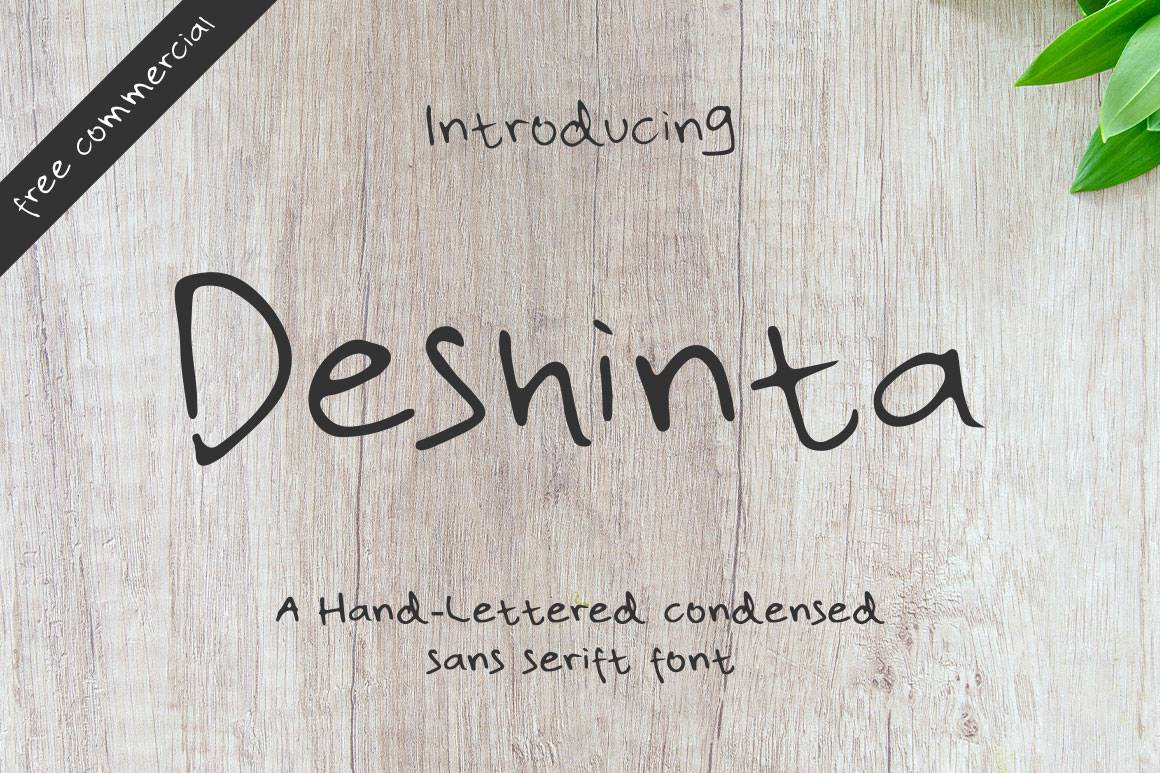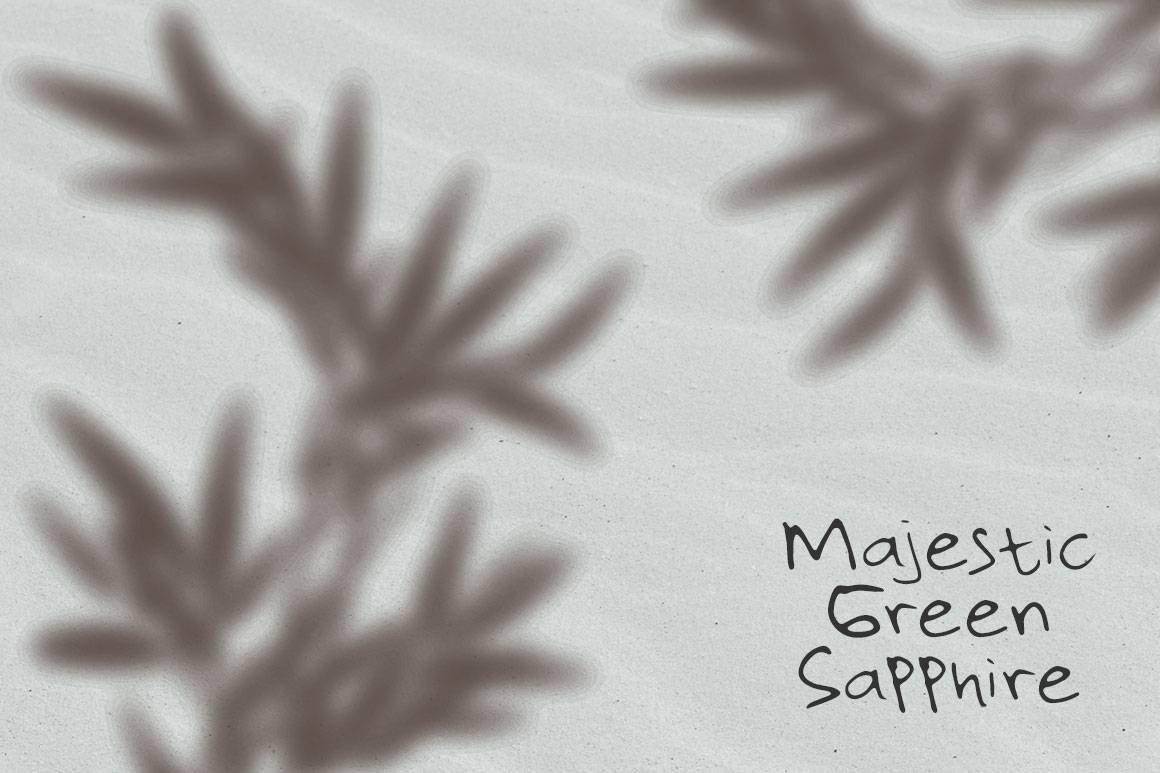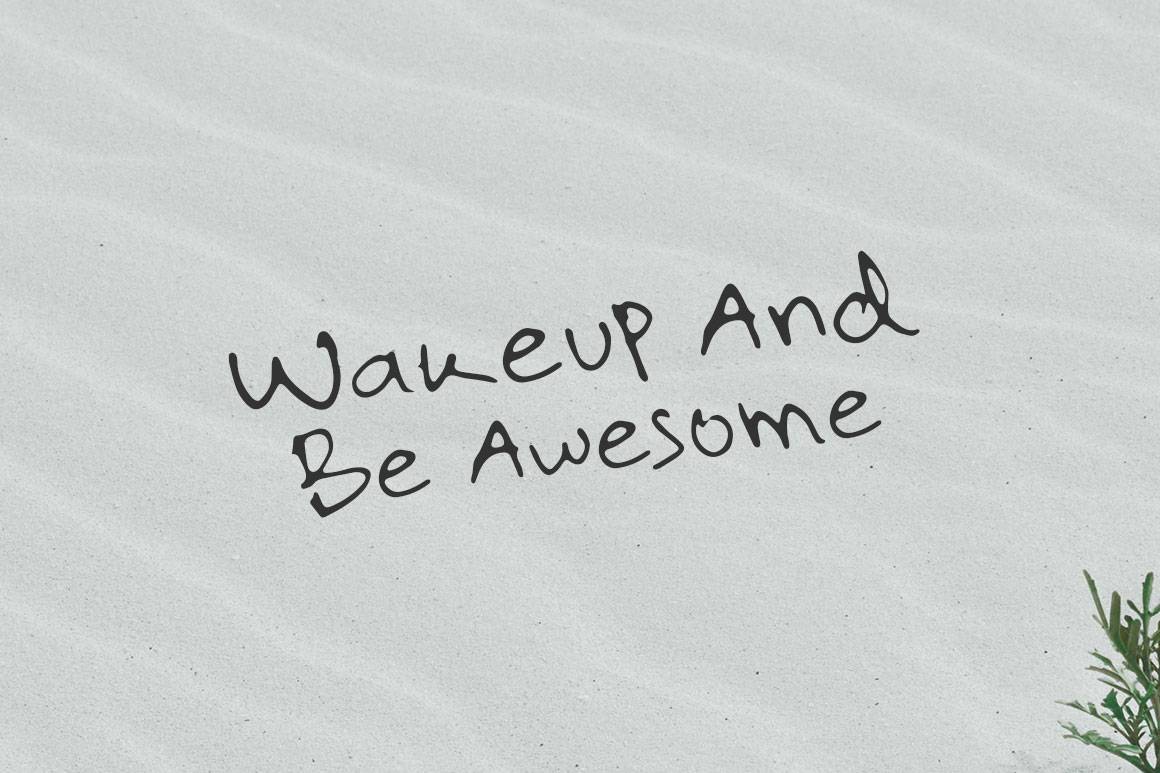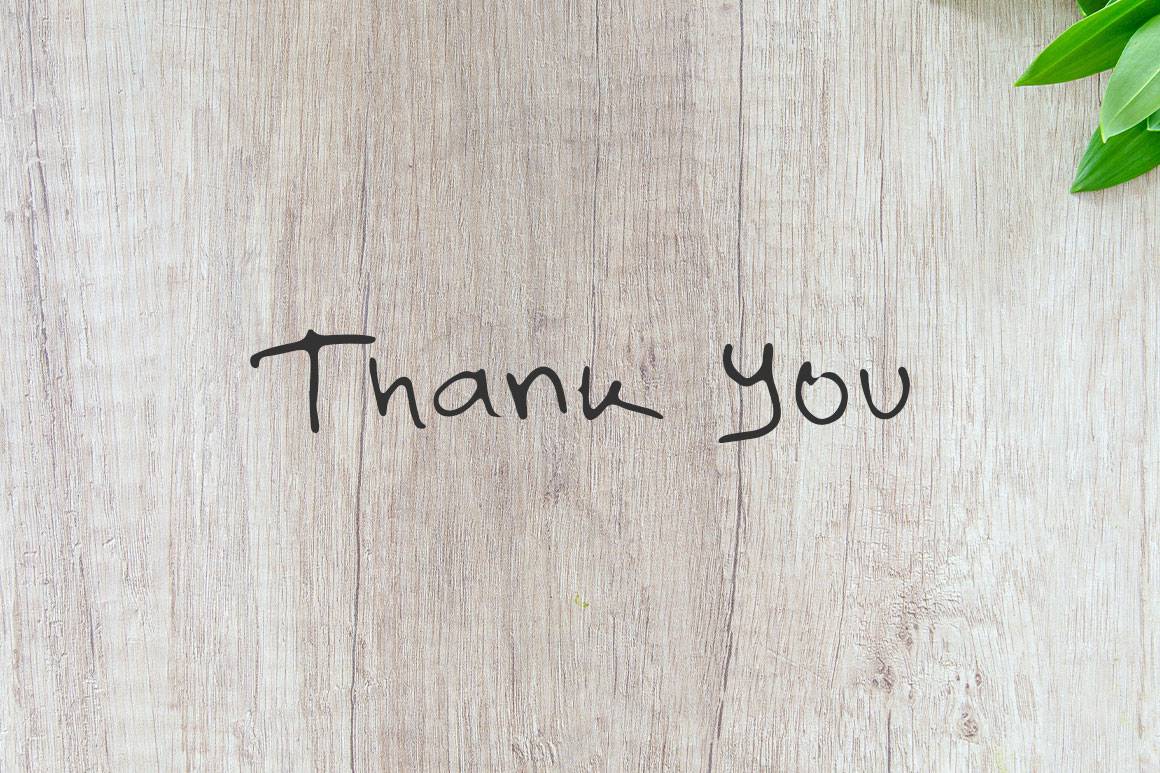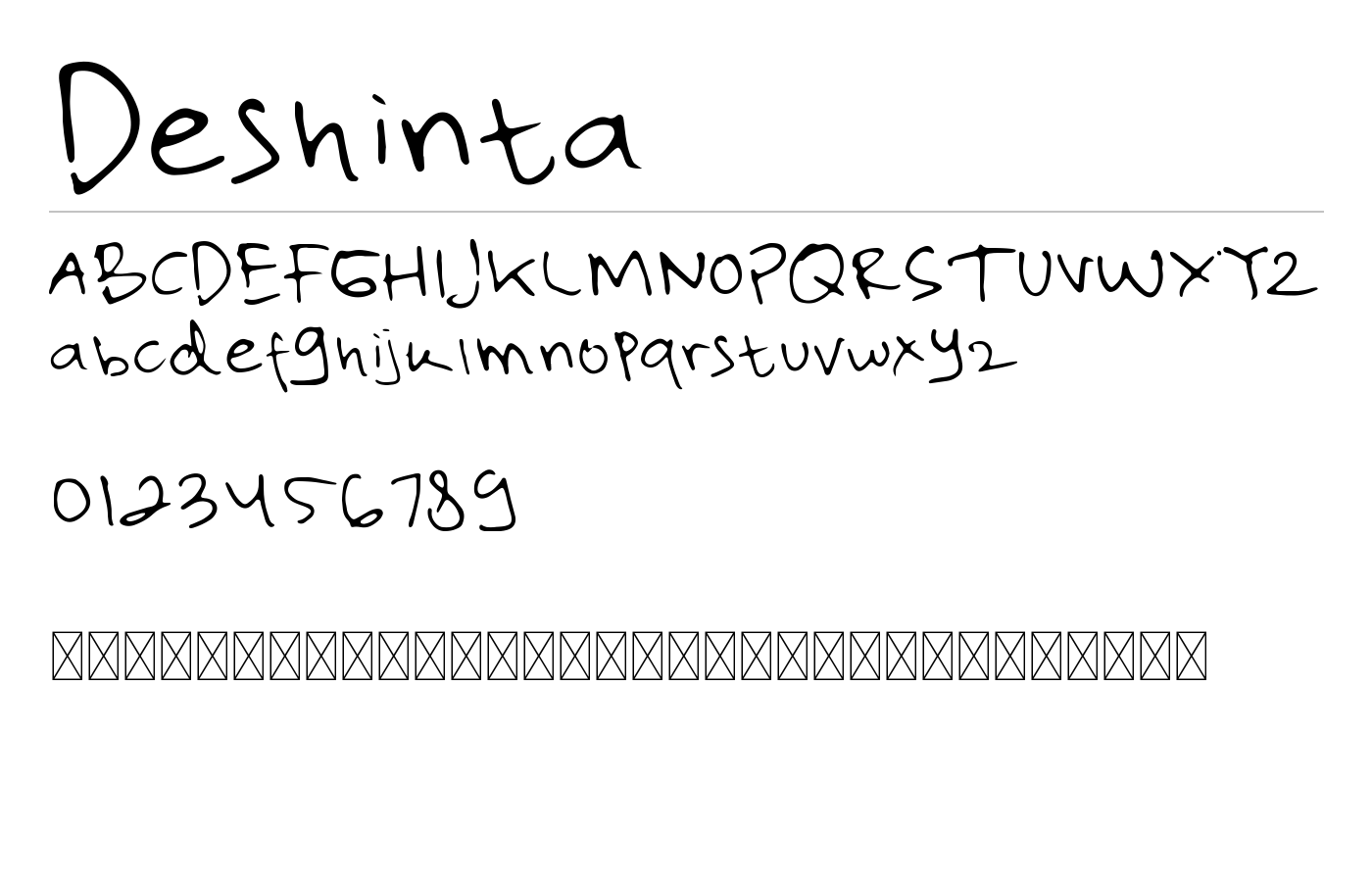
Deshinta is a playful, hand-drawn sans serif font with an informal and quirky personality. Its irregular, lightly textured strokes and casual letterforms create a friendly and approachable feel, making it ideal for creative projects, casual branding, and children's materials. This font works best in headlines, logos, or designs that want to convey warmth and individuality rather than formal structure.
Deshinta Font
About Deshinta Font
| Font family | Deshinta Font |
| Release date | 2020-06-25 |
| Designer | Deshinta sanjaya |